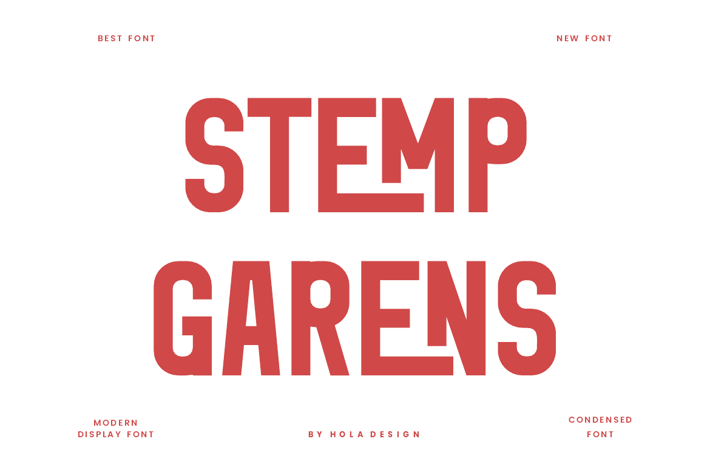
Stemp Garens - Condensed & Clean Font
Stemp Garens - Condensed & Clean Font is unique . Ready to use for your design like labeling, movie sceen, poster, movie title, gigs, album covers, logos, and much more.